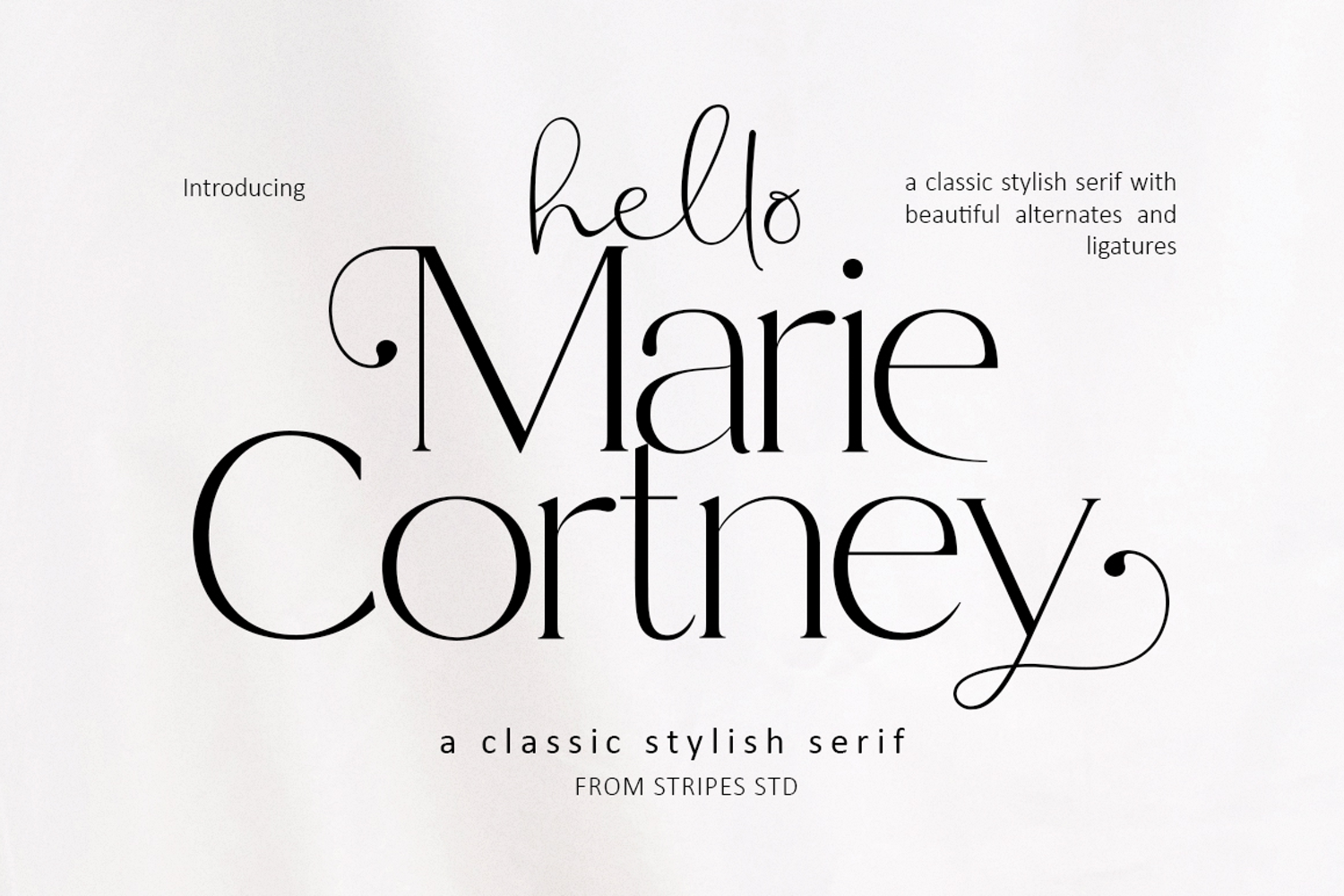
Marie Cortney is a stylish serif with beautiful ligatures and alternates. Add interest by adding beautiful ligatures to make your typography truly unique. Perfect for all your creativity.
Marie Cortney